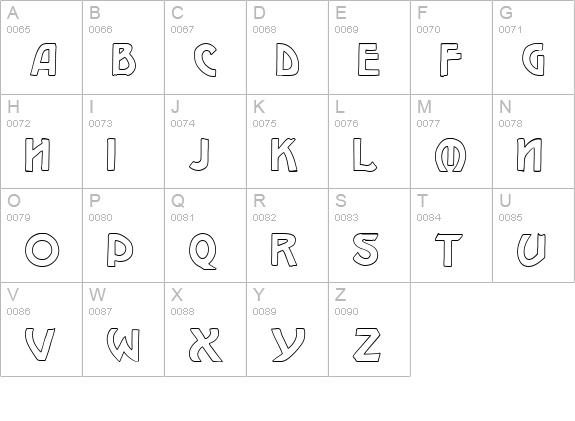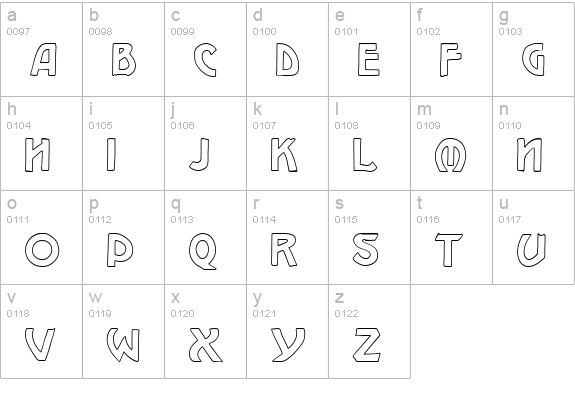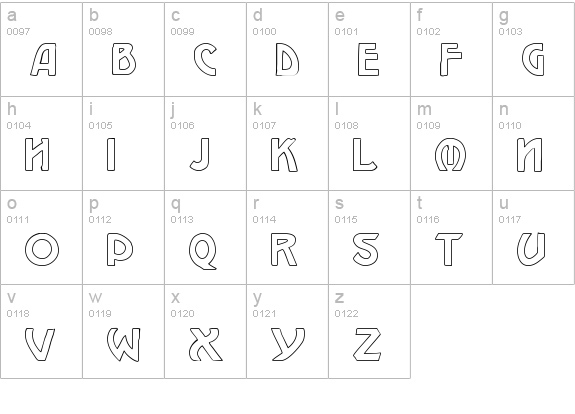
W.J. Pearce hollow Font Details
Introducing the captivating and mesmerizing W.J. Pearce Hollow font - a true embodiment of elegance and sophistication. This uniquely crafted typeface effortlessly combines the timeless charm of a classic hollow design with a modern twist, creating a visually striking and attention-grabbing aesthetic. With its intricate and delicate letterforms, W.J. Pearce Hollow exudes a sense of intricate craftsmanship and meticulous attention to detail. Each character is meticulously designed to showcase an exquisite hollow center, allowing for a harmonious balance between negative space and bold outlines. The result is a font that effortlessly captures the imagination and adds a touch of refinement to any project. Whether you're looking to make a statement with your branding, create eye-catching headlines, or add a touch of elegance to your wedding invitations, W.J. Pearce Hollow is the perfect choice. Its versatility knows no bounds, effortlessly adapting to various design styles and contexts, showcasing its timeless appeal. One of the most remarkable aspects of W.J. Pearce Hollow is that it is freely available to download at FontsMarket.com. This means that you can easily access and utilize this stunning font without any constraints or limitations. Let your creativity soar as you explore the endless possibilities that this font offers, knowing that you have the freedom to use it as you please. So, whether you're a seasoned graphic designer, a budding artist, or simply someone who appreciates the beauty of typography, W.J. Pearce Hollow is here to elevate your designs to new heights. Download it for free at FontsMarket.com and unlock a world of artistic possibilities. Get ready to captivate hearts, inspire minds, and leave a lasting impression with the remarkable W.J. Pearce Hollow font.